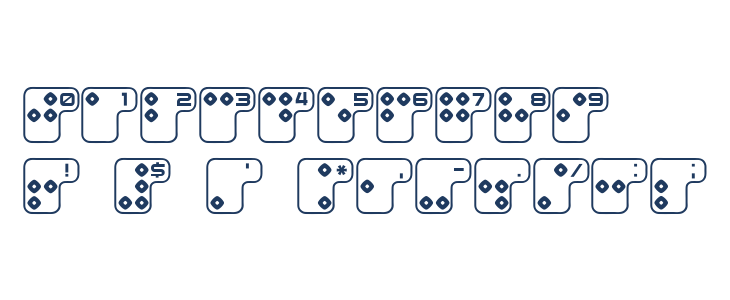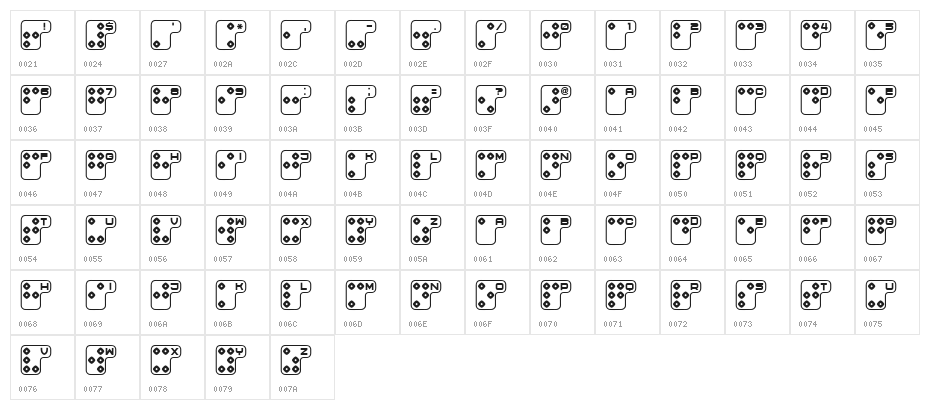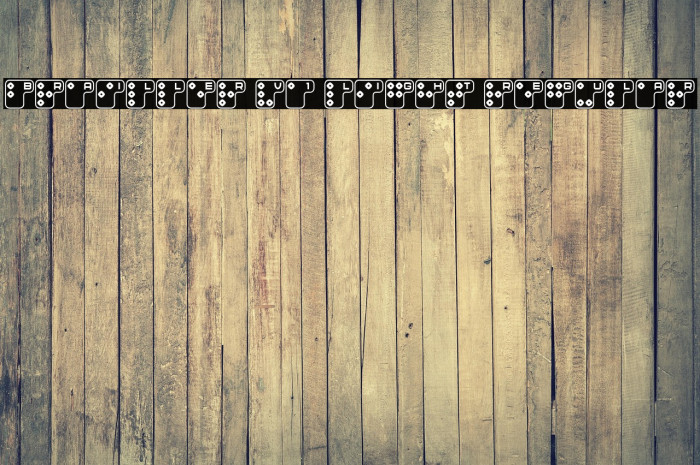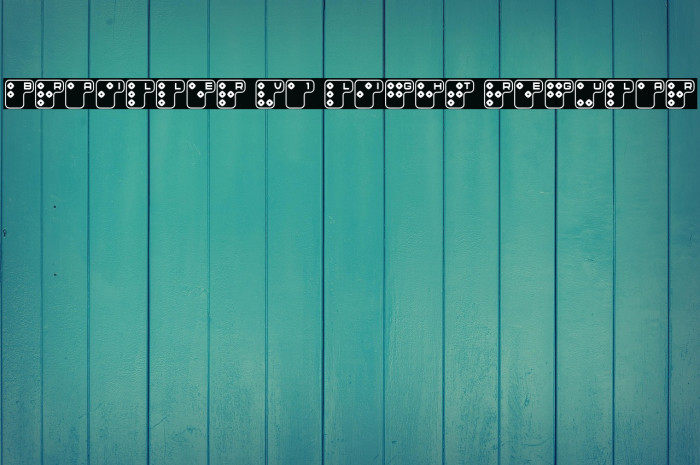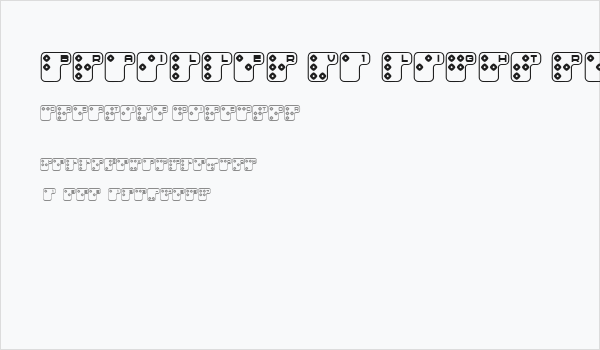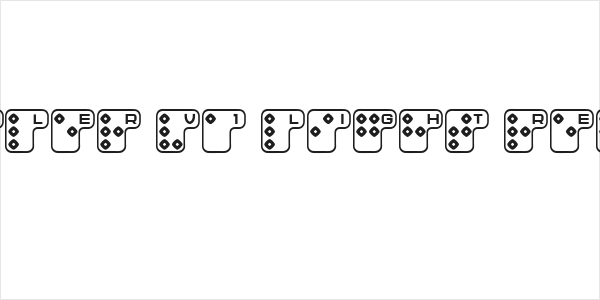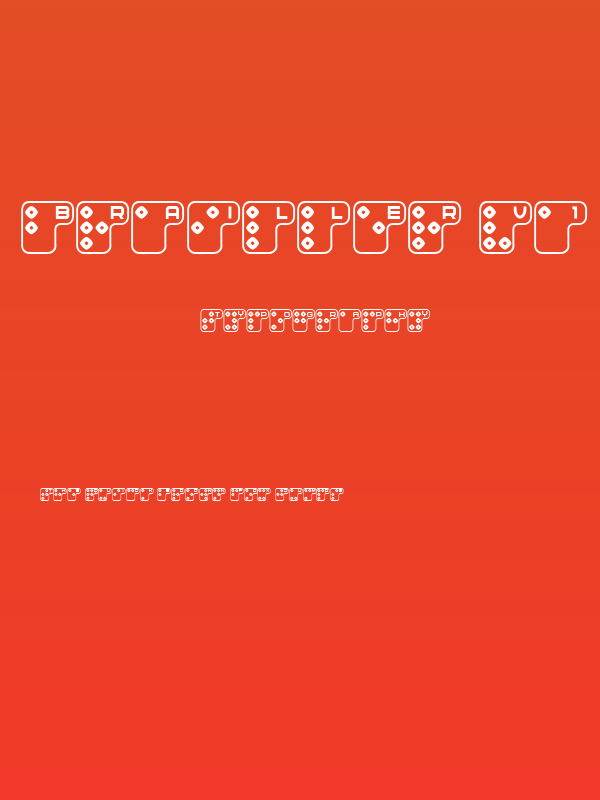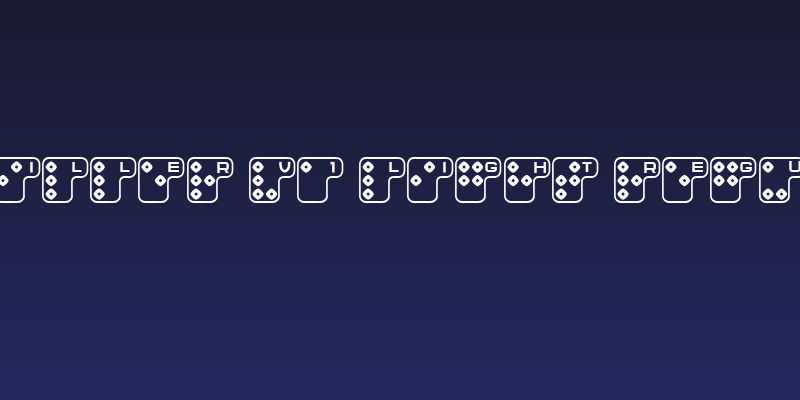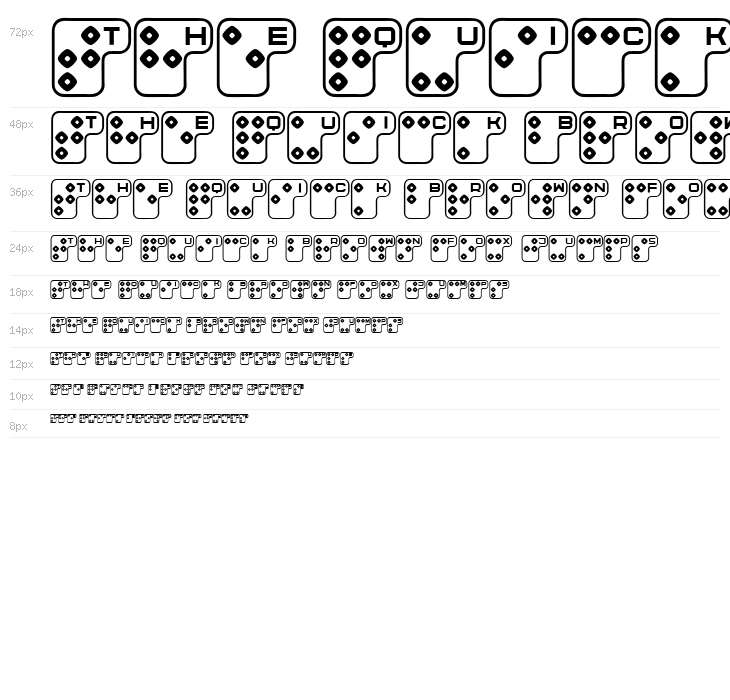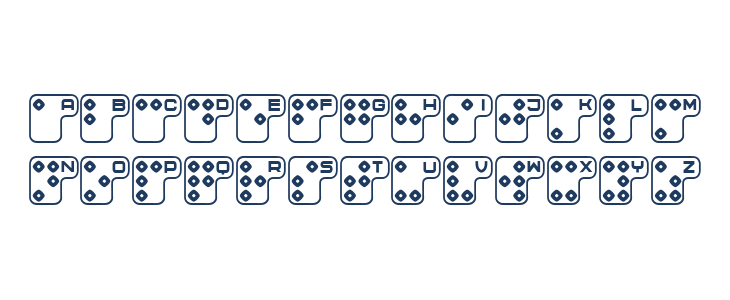
Brailler V1 Light Regular Font
Brailler V1 Light Regular Description
This font is a unique representation of the Braille writing system, designed to visually mimic the tactile dots used by visually impaired individuals. Each character is enclosed within a rounded rectangle, with distinct dot patterns that correspond to the Braille alphabet and numerals. The design is clean and minimalistic, focusing on clarity and readability. The dots are evenly spaced within each character cell, maintaining a consistent size and alignment. This font bridges the gap between visual and tactile communication, making it an educational tool for those learning Braille or for creating accessible designs.
| Use Case | Educational materials, Accessibility designs, Logos |
| Proposed Projects | Ideal for educational materials, accessibility-focused designs, and projects aiming to bridge visual and tactile communication. |